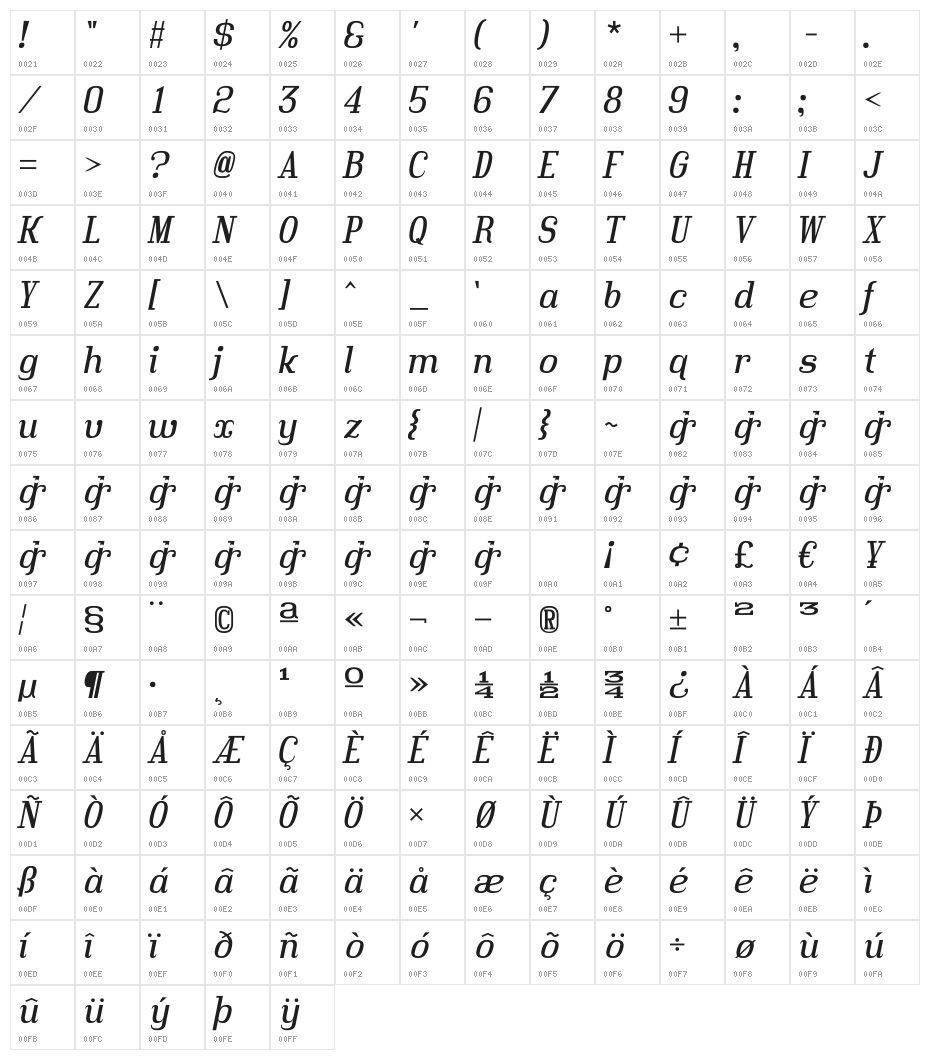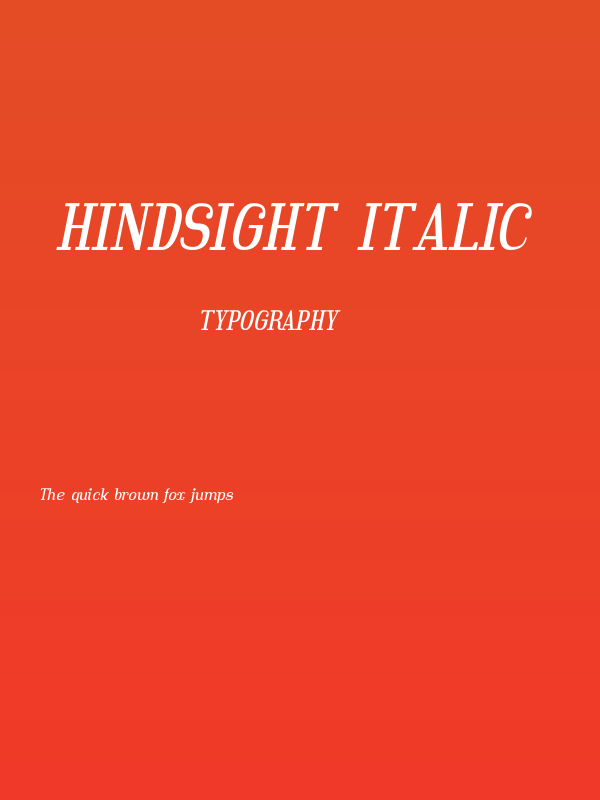
Hindsight Italic Font
Hindsight Italic Description
This font exudes a classic elegance with its italicized serif style, characterized by smooth curves and a slight slant that adds a sense of motion and sophistication. The uppercase letters are tall and commanding, while the lowercase letters maintain a consistent flow, making it versatile for various design needs. The numerals are clear and distinct, ensuring readability. Special characters are well-integrated, maintaining the font's overall aesthetic. The font's balance between traditional serif elements and a modern italic twist makes it suitable for both formal and creative applications.
| Proposed Projects | Ideal for editorial design, book covers, elegant invitations, and branding projects that require a touch of sophistication. |